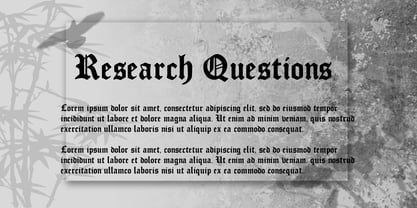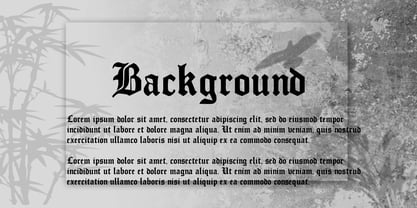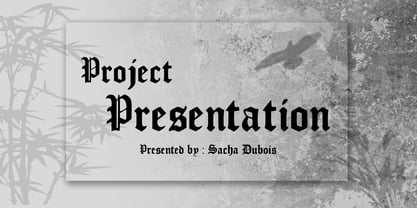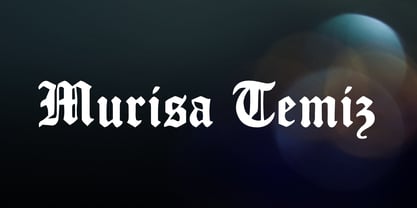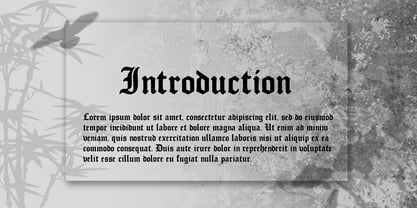
Murisa Temiz
The Murisa Temiz Font Family was designed by Lili Sadili and published by Murisa Studio. Murisa Temiz contains 2 styles and family package options. More about this family
Murisa Temiz – Classic Elegance Meets Precision Typography
Unveil timeless artistry with Murisa Temiz, a masterfully crafted Blackletter font designed to bring bold tradition and refined modern detail to your creative visual identity. Inspired by classic gothic calligraphy, Murisa Temiz combines dramatic, sharp strokes with exceptionally clean curves to make every word look striking and authoritative.
✨ Key Features:
• 🏰 Timeless Gothic Aesthetic: Features bold, sharp, and sophisticated Blackletter letterforms perfect for vintage branding, apparel, posters, labels, and editorial design.
• 🌍 Extended Eastern European Support: Broadened language capability designed to support Eastern European alphabets seamlessly.
• 🎯 Meticulous Accent Positioning: Enhanced glyph structure with refined diacritic placement for superior readability and balance across multiple languages.
• 🖋️ Complete Character Set: Includes uppercase, lowercase, numbers, and key punctuation designed to maintain a harmonious, high-impact aesthetic.
Elevate your designs with the historic charm and modern typographic perfection of Murisa Temiz